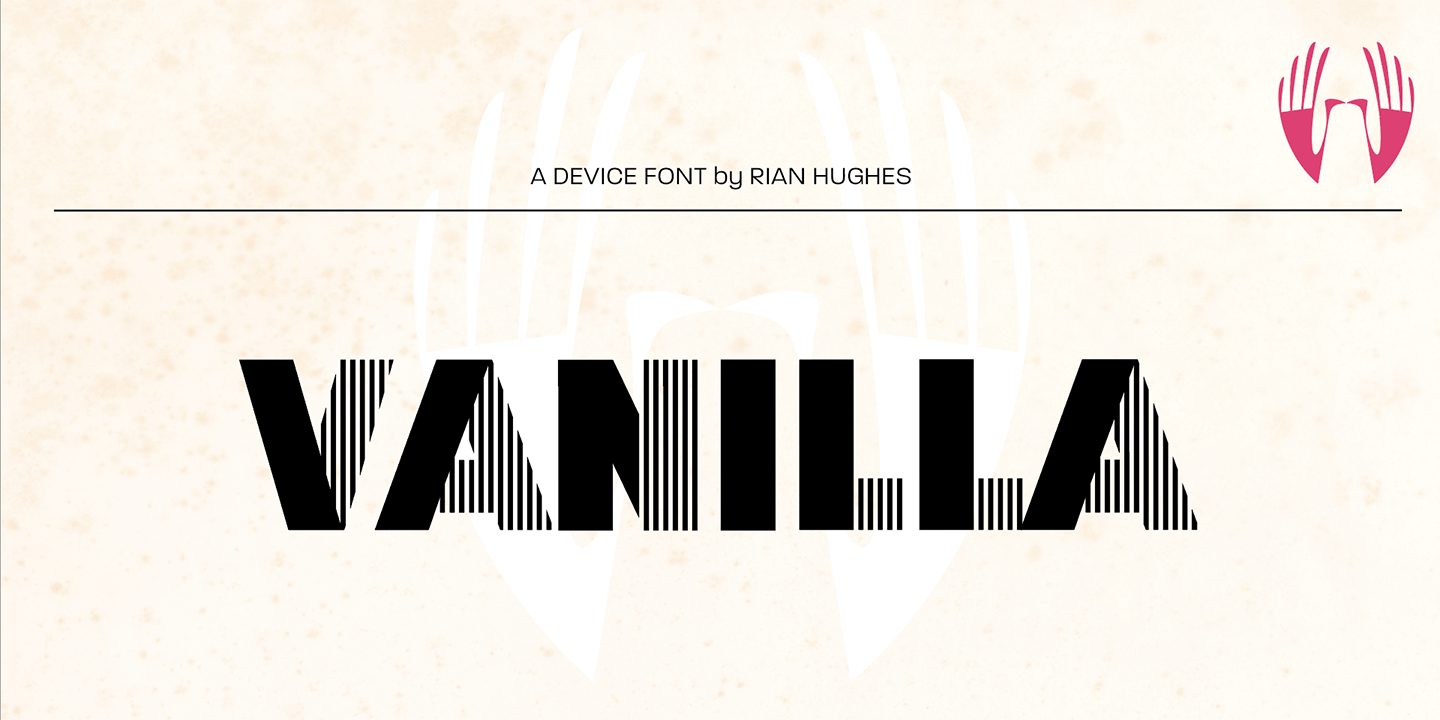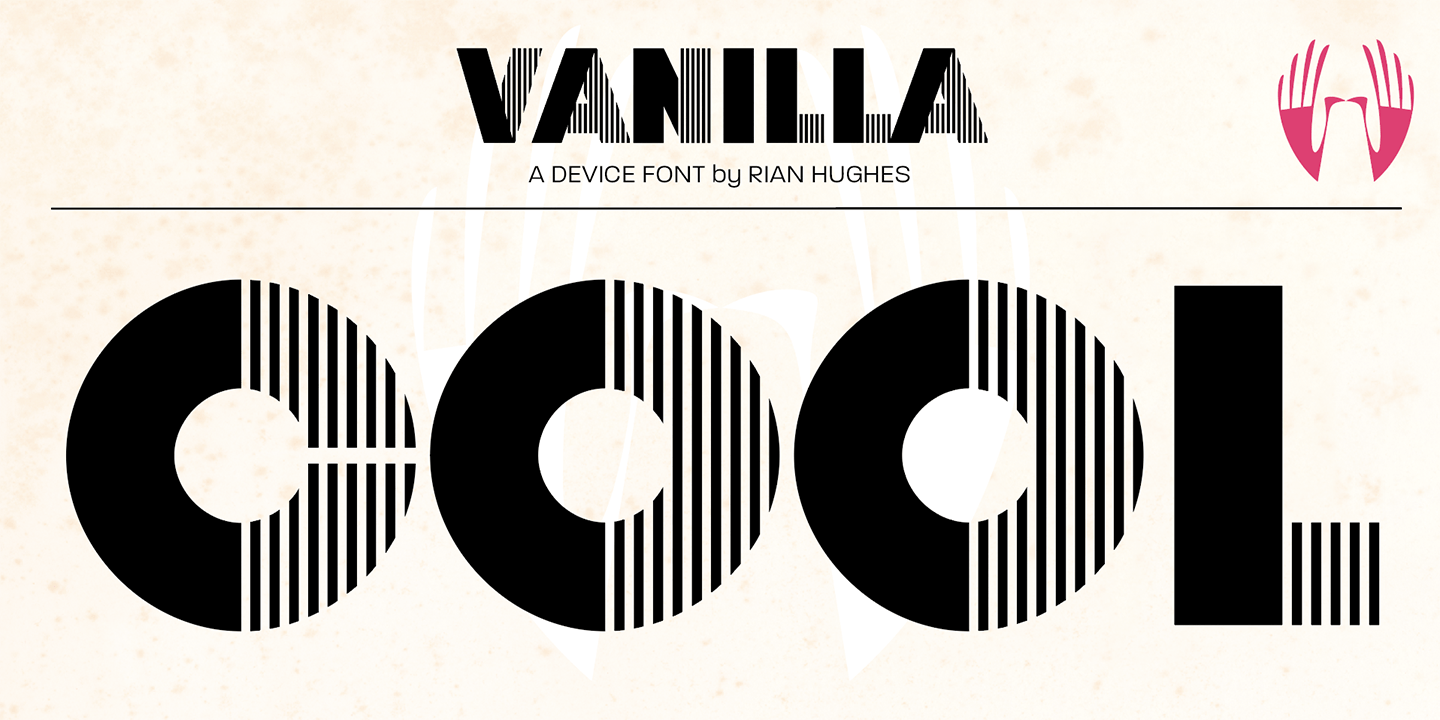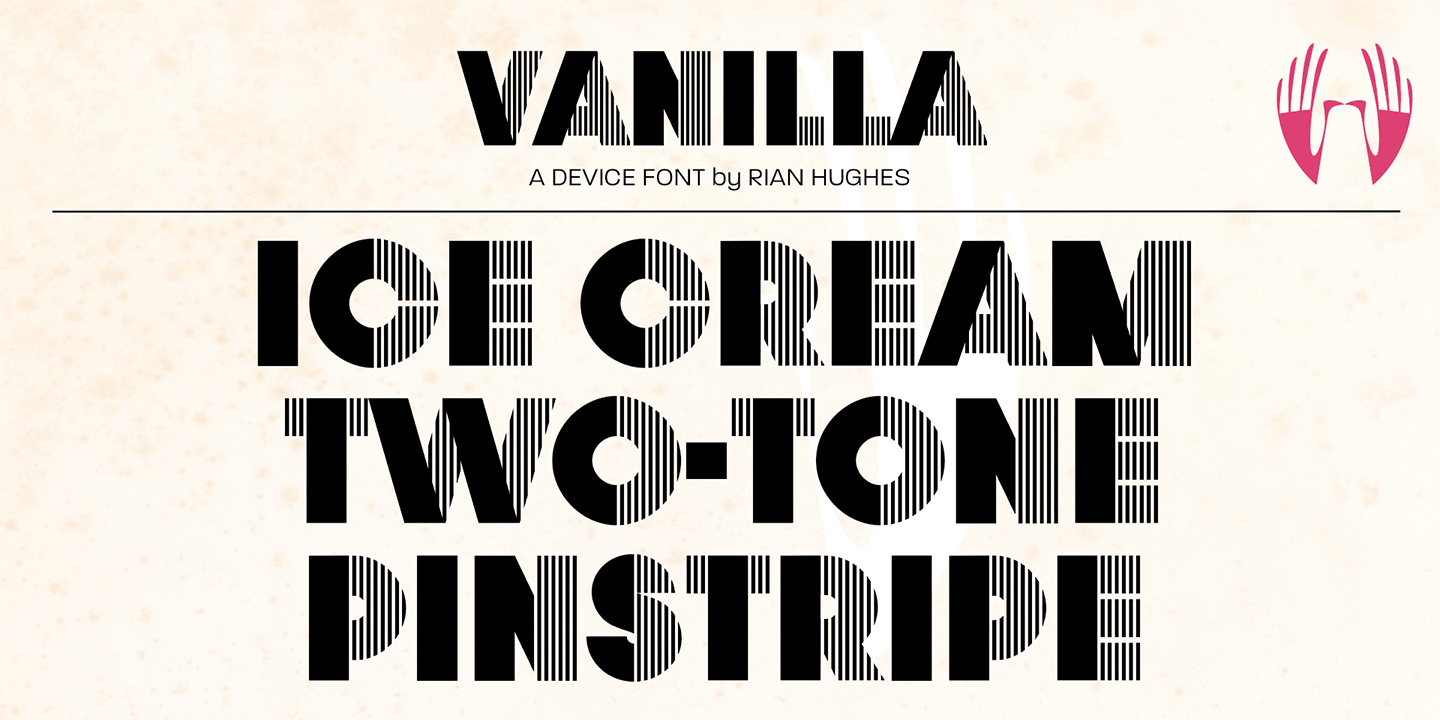
Vanilla
Font Family by Device
Two-flavour stripes feature in this geometric font that is reminiscent of the Deco styles that adorn seaside ice-cream parlours and arcades.